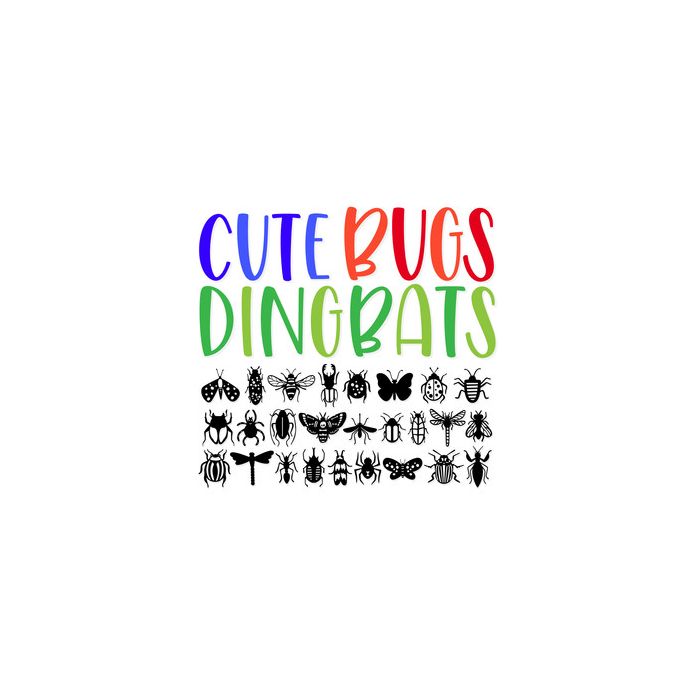
This fun dingbat font has 26 adorable insect icons that you can type & cut. *Kerning, letting, and baseline may need to be adjusted for desired effect. For ideas and inspiration visit my website or or my blog!